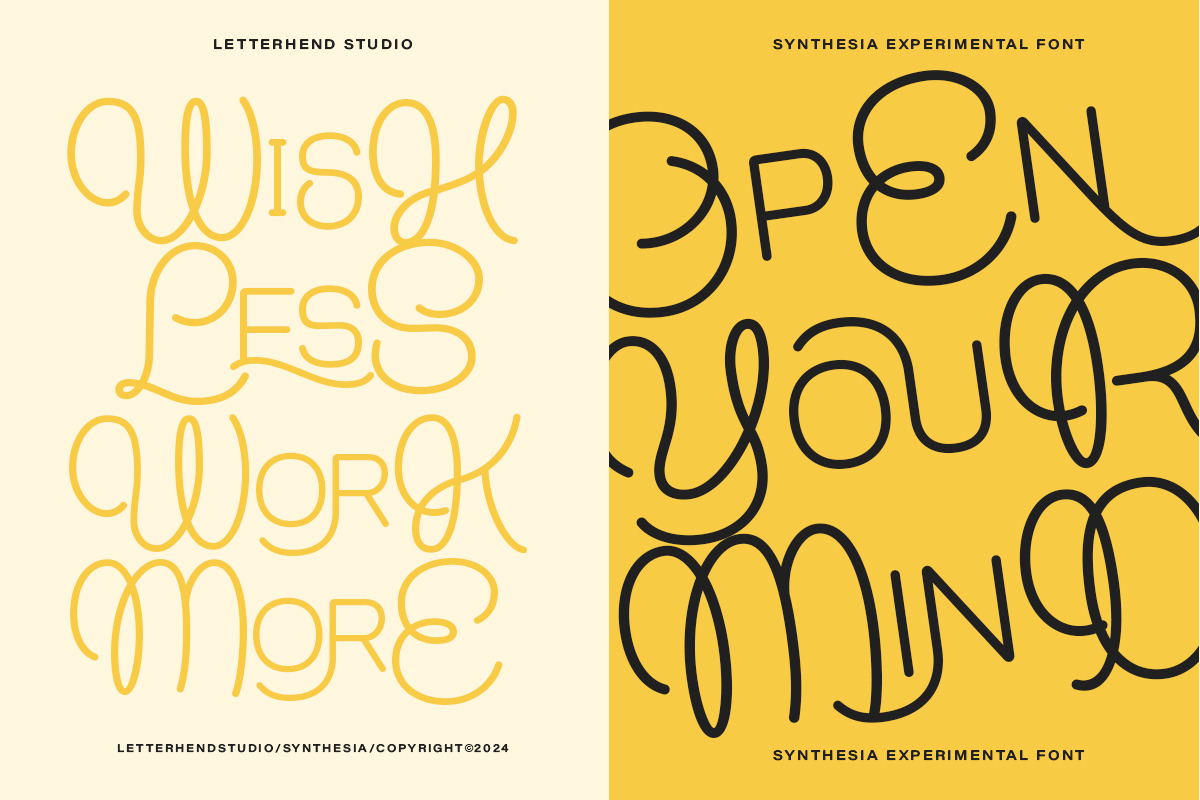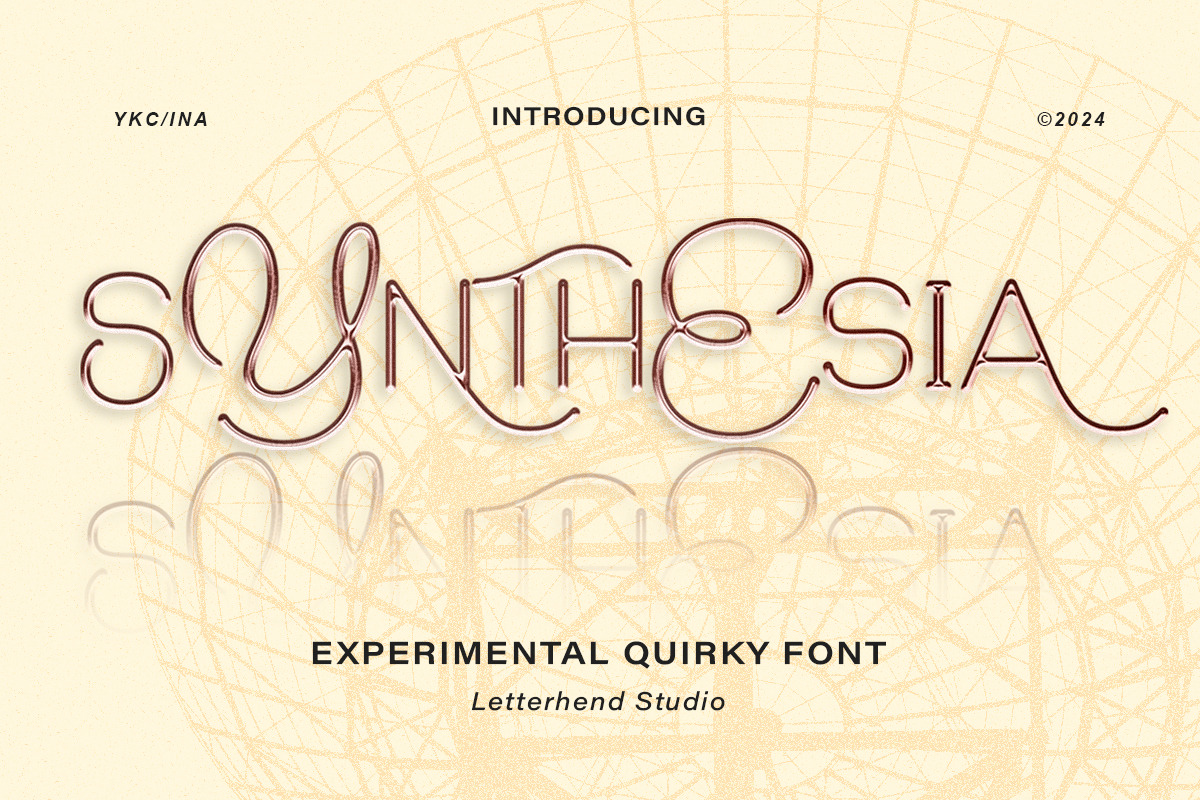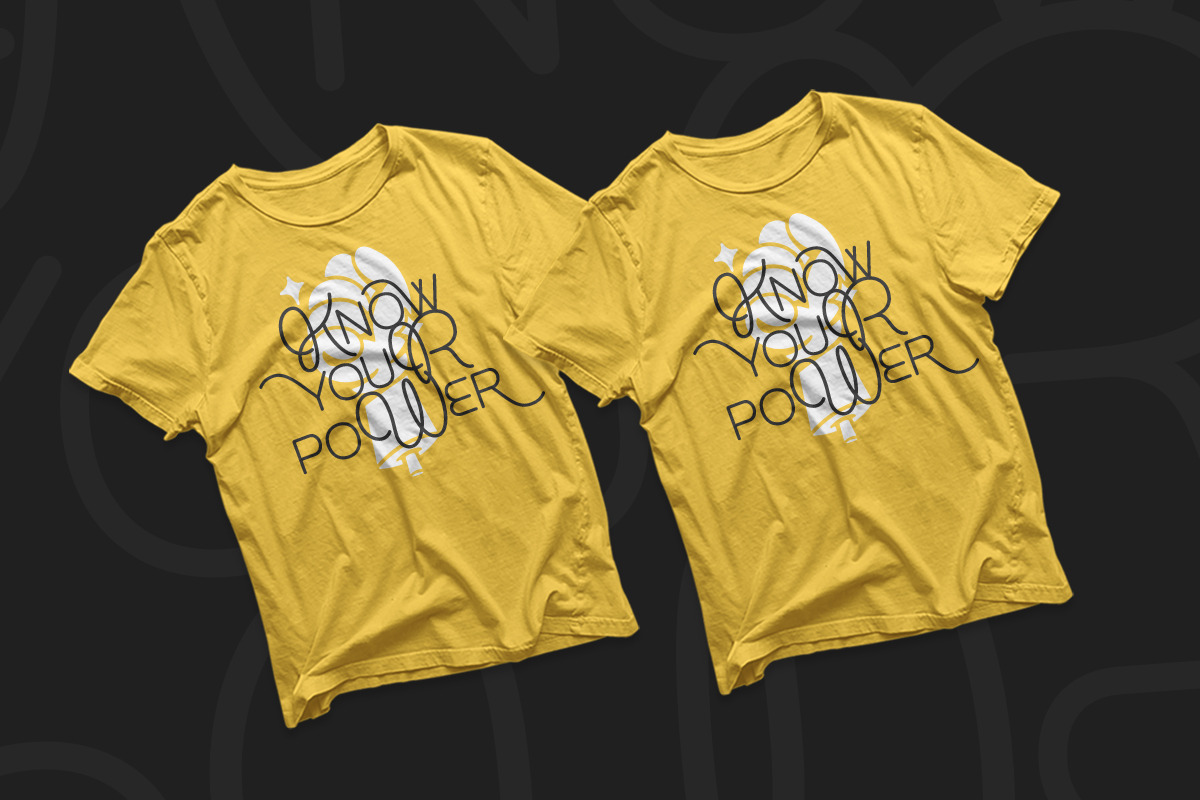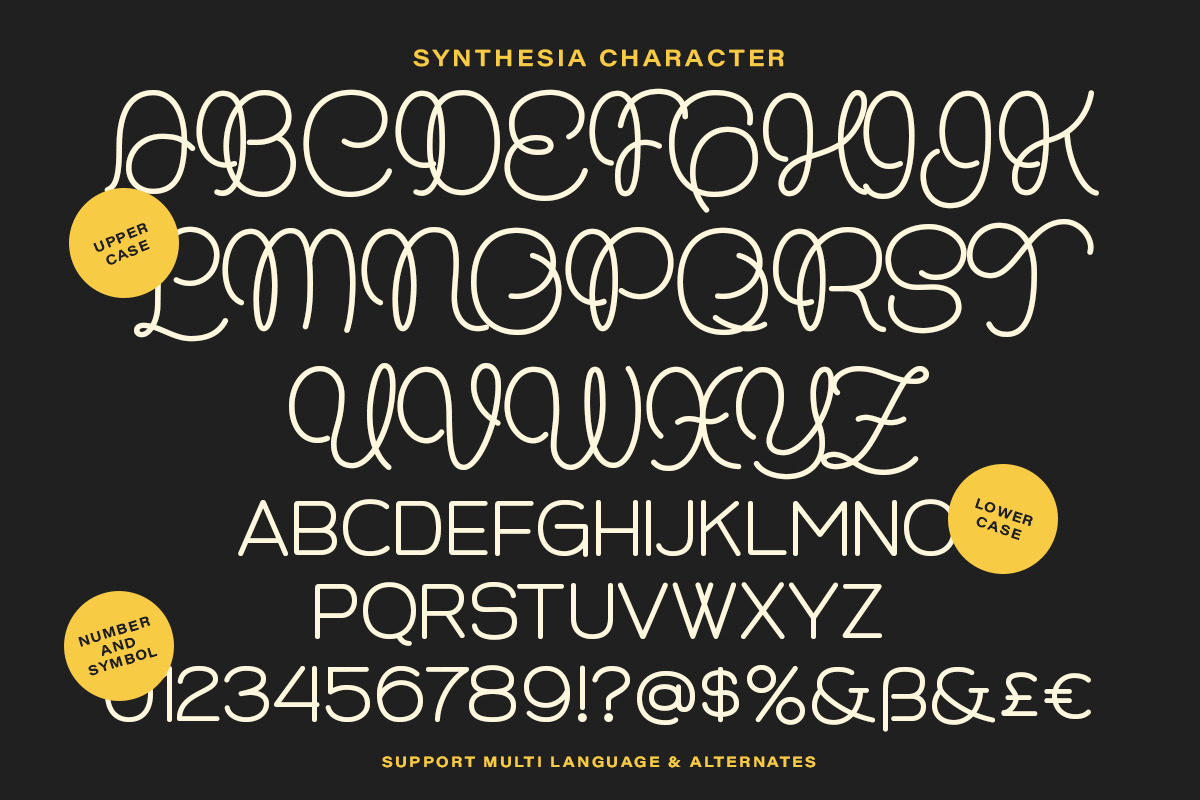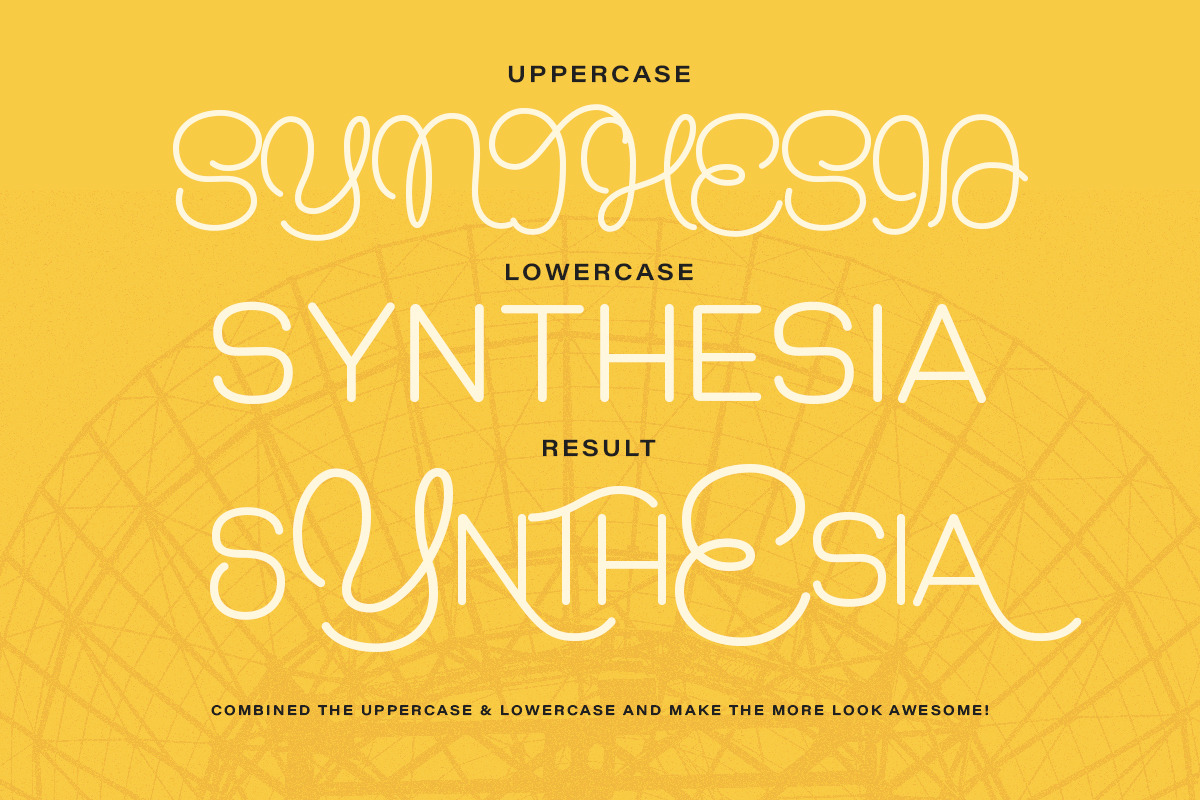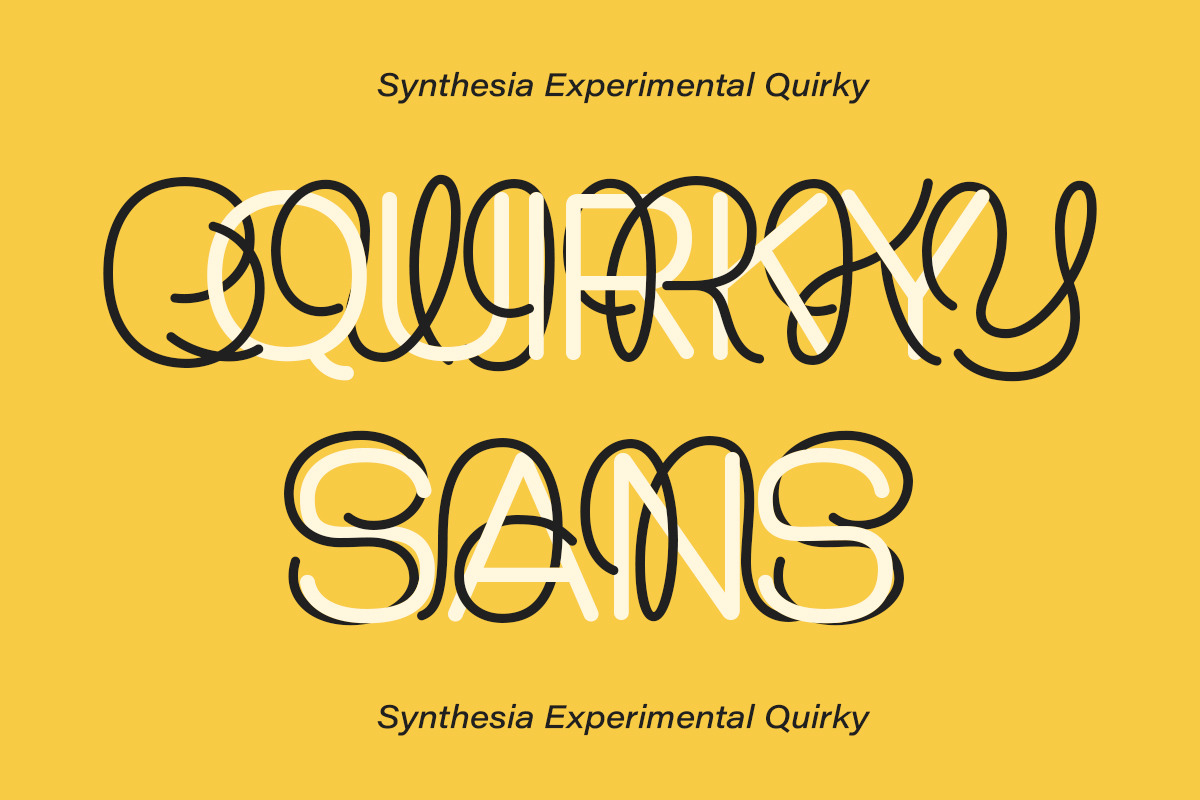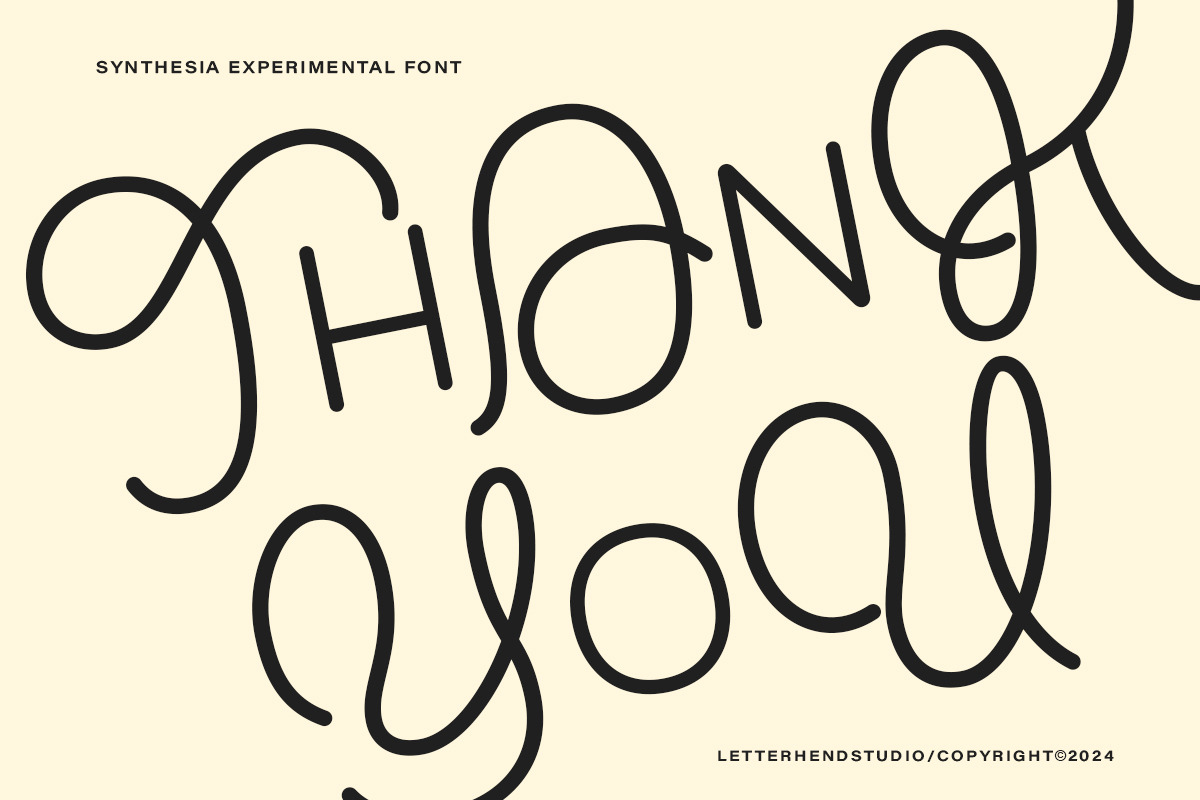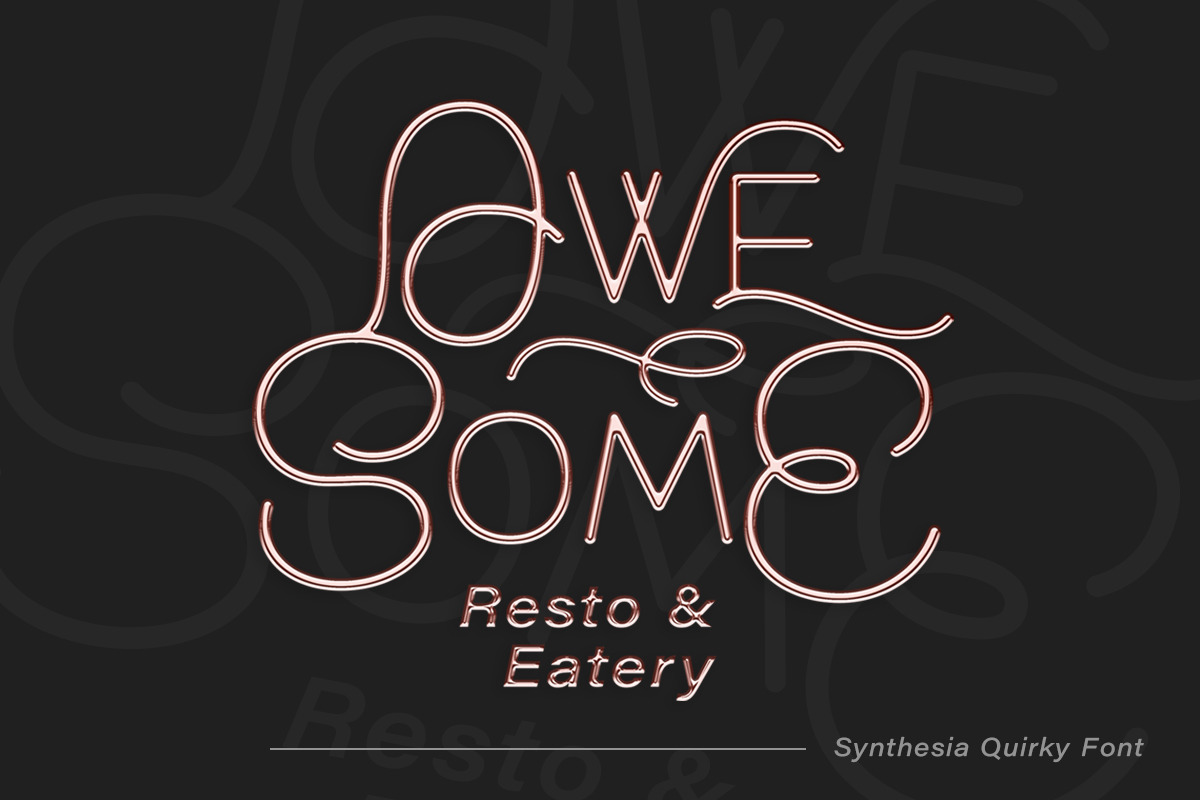
Synthesia Experimental Quirky Font
Meet Synthesia—a playful, experimental display font that blends style, elegance, and artistic flair into one striking package. Perfect for making a statement in logos, invitations, labels, magazines, books, and more, this font adds a touch of sophistication to everything from fashion and makeup to stationery and advertising. Let Synthesia elevate your design with its unique charm!